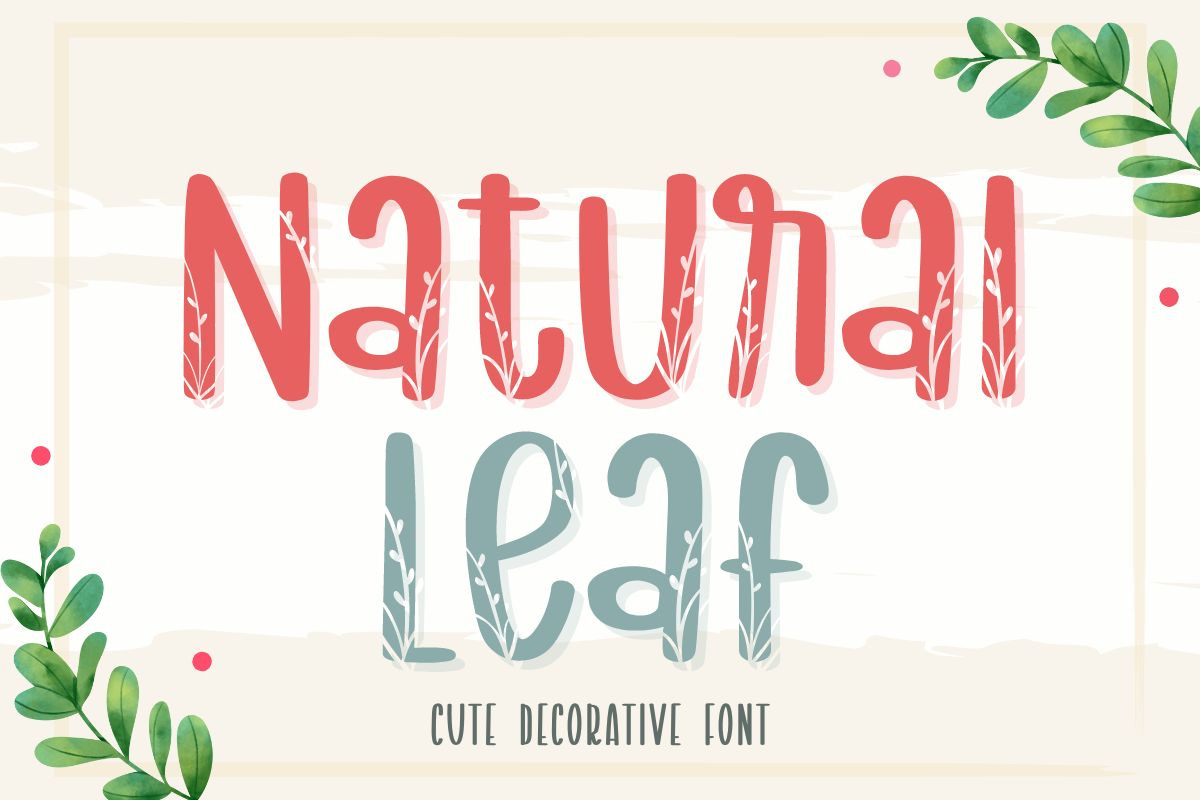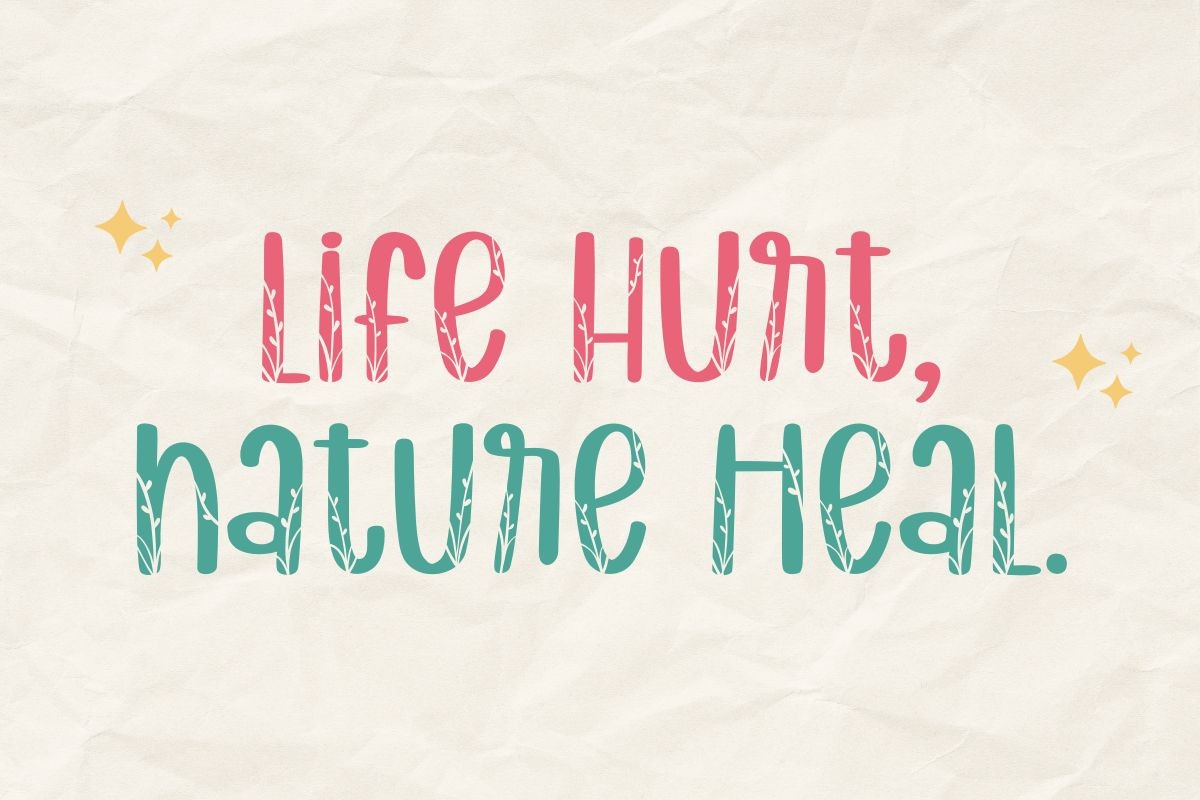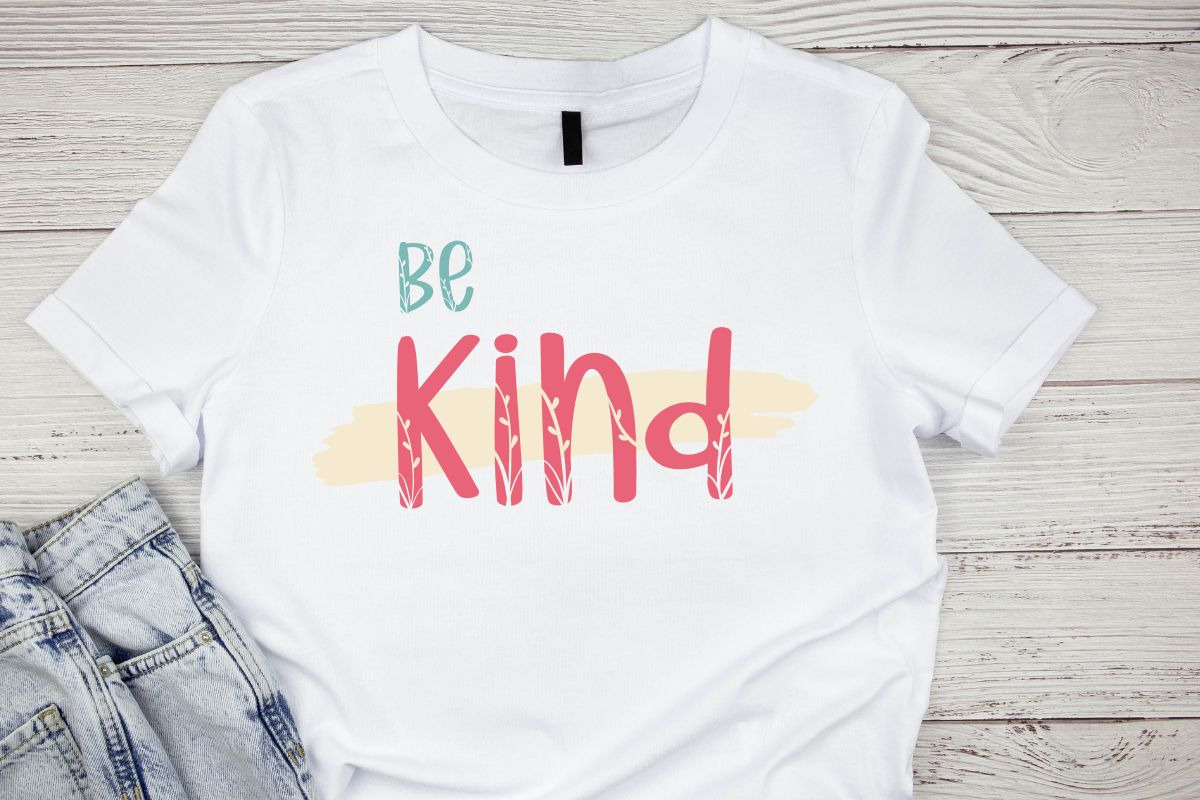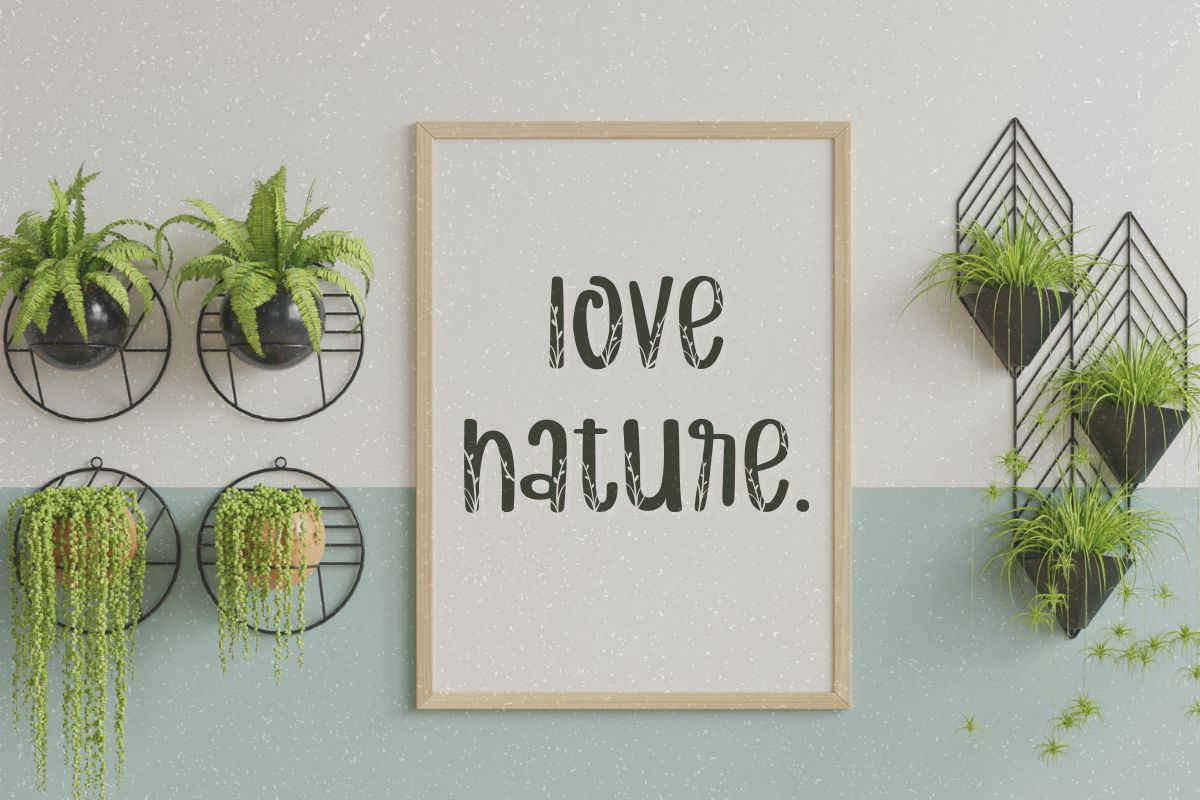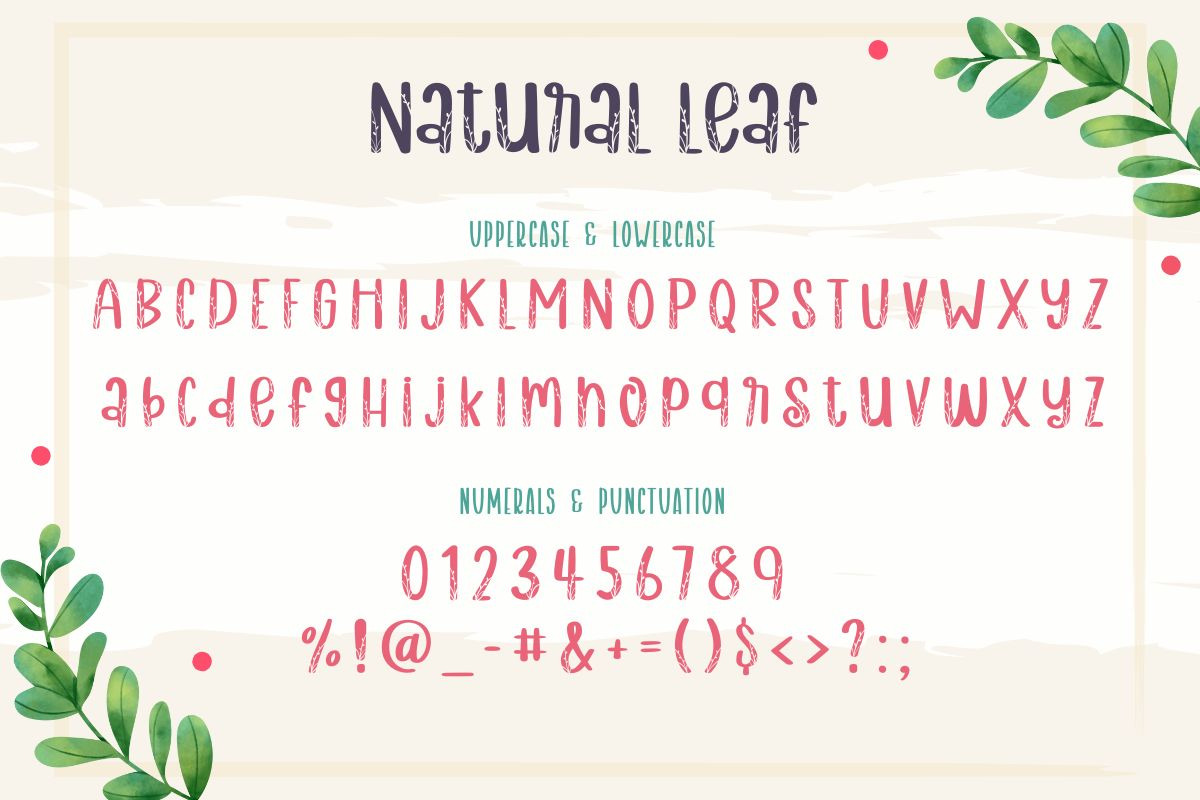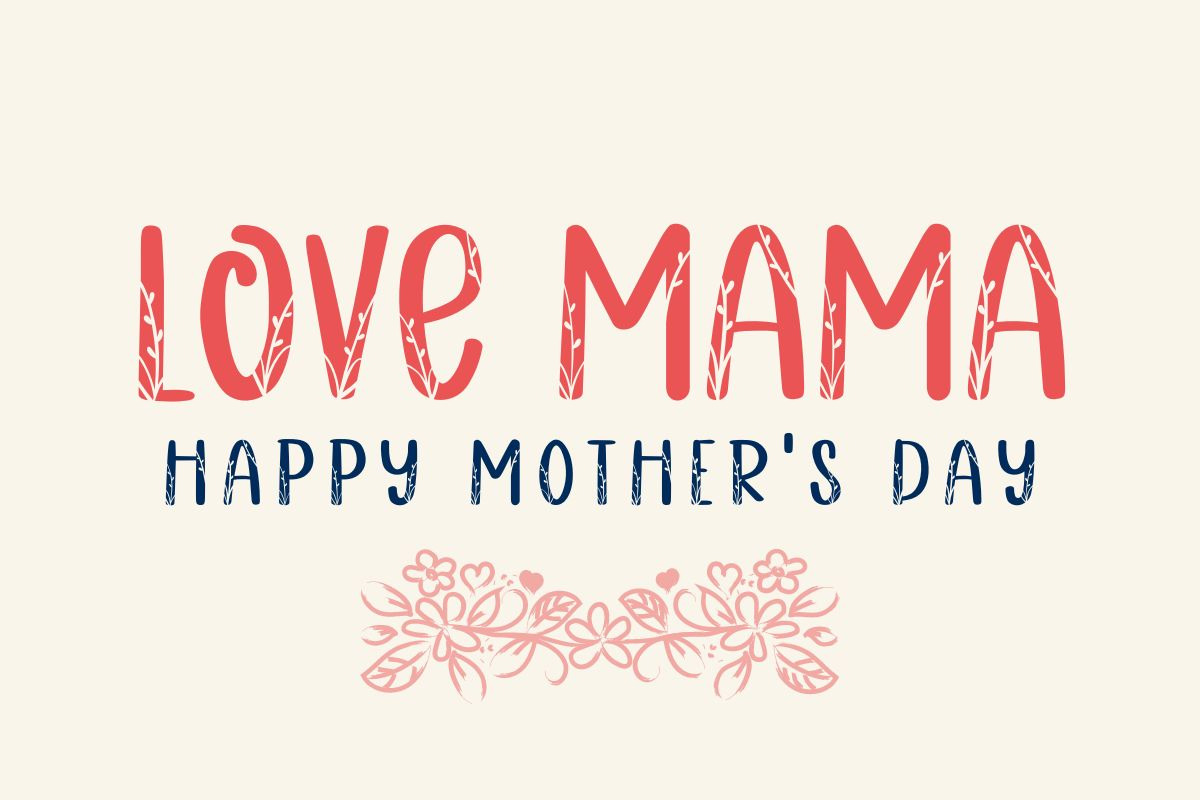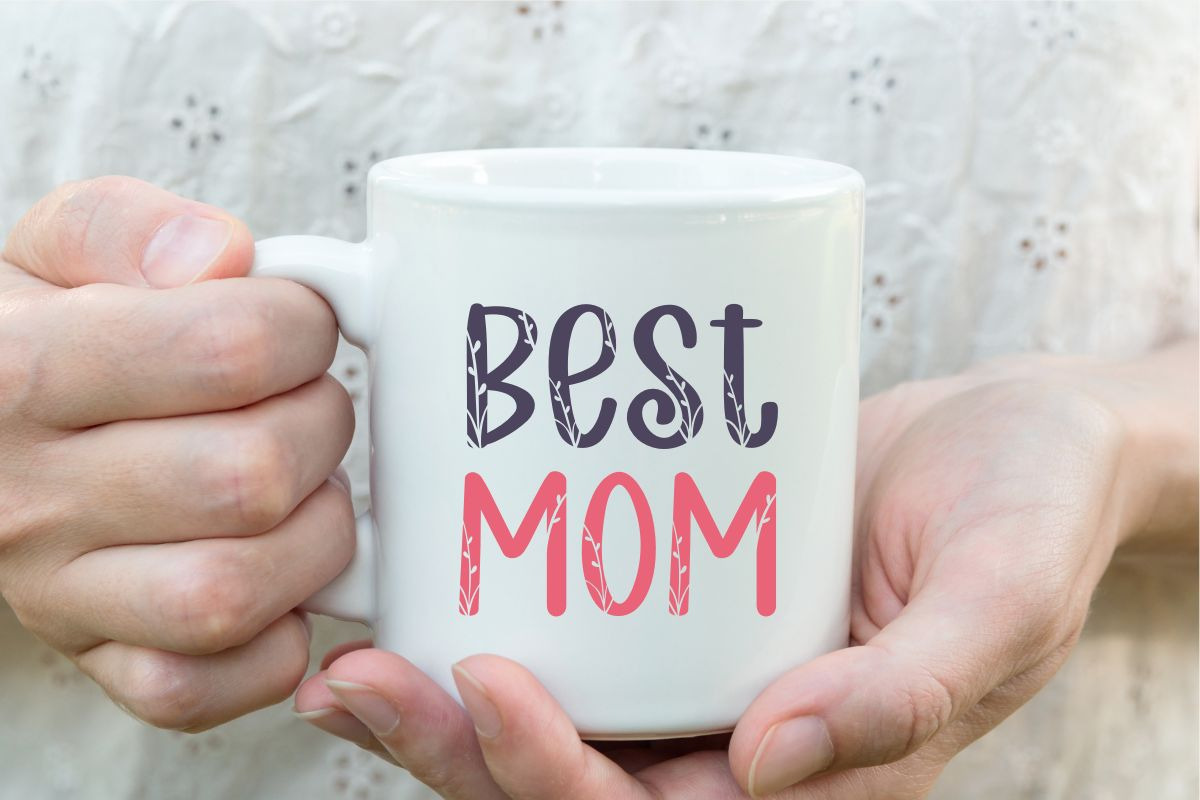
Natural Leaf | Decorative Font
Natural Leaf is a cute decorative font that incorporates leaf patterns to give it a unique and eye-catching look compared to regular fonts. You can use this font to decorate banners or various products such as glasses, shirts, picture frames, water bottles, and many more!